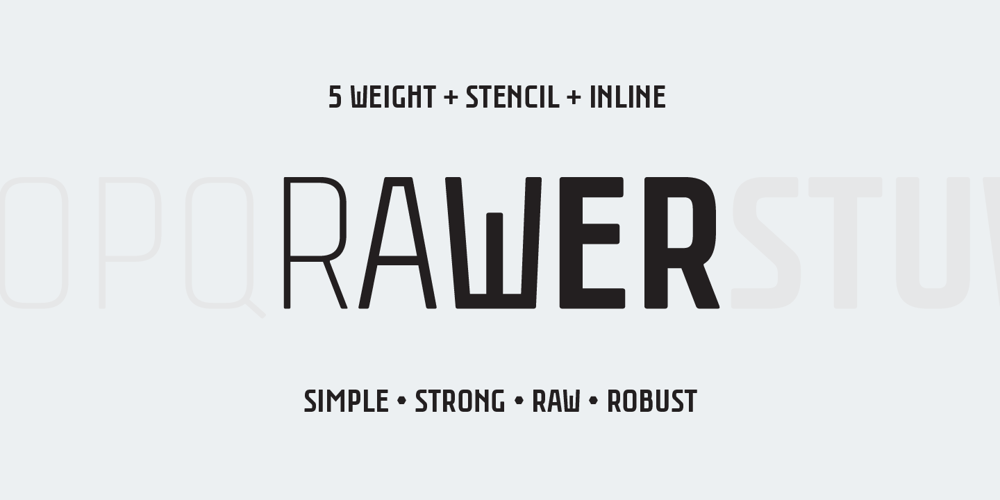
Rawer Font Family was designed by Valery Zaveryaev and published by Gaslight. Rawer contains 7 styles and family package options. Another boring sans?! No way! Rawer – simple, strong, raw, robust sans with stencil and inline weights. And again it’s inspired by soviet typography.